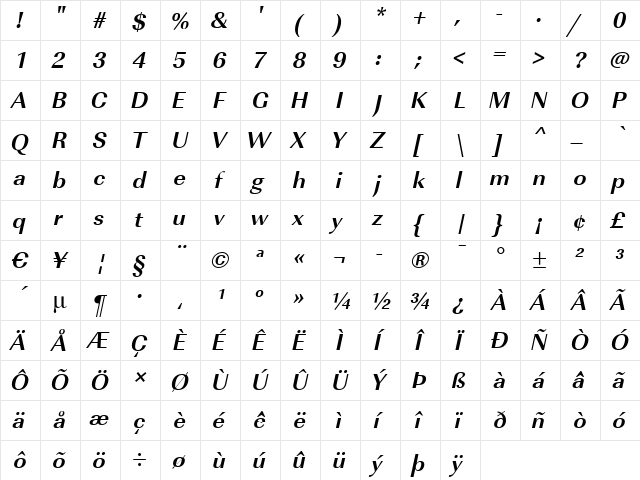
RicoBecker Bold Italic
Design Context for RicoBecker Typeface
RicoBecker is a composed and adaptable typeface that performs quietly and consistently across a wide range of design contexts. The slanted form adds forward momentum and visual energy. Its bold stroke weight gives it real presence on the page.
Pro Tip: Try RicoBecker for annotation and caption copy alongside an upright companion — the contrast in angle creates a dynamic but ordered typographic system.